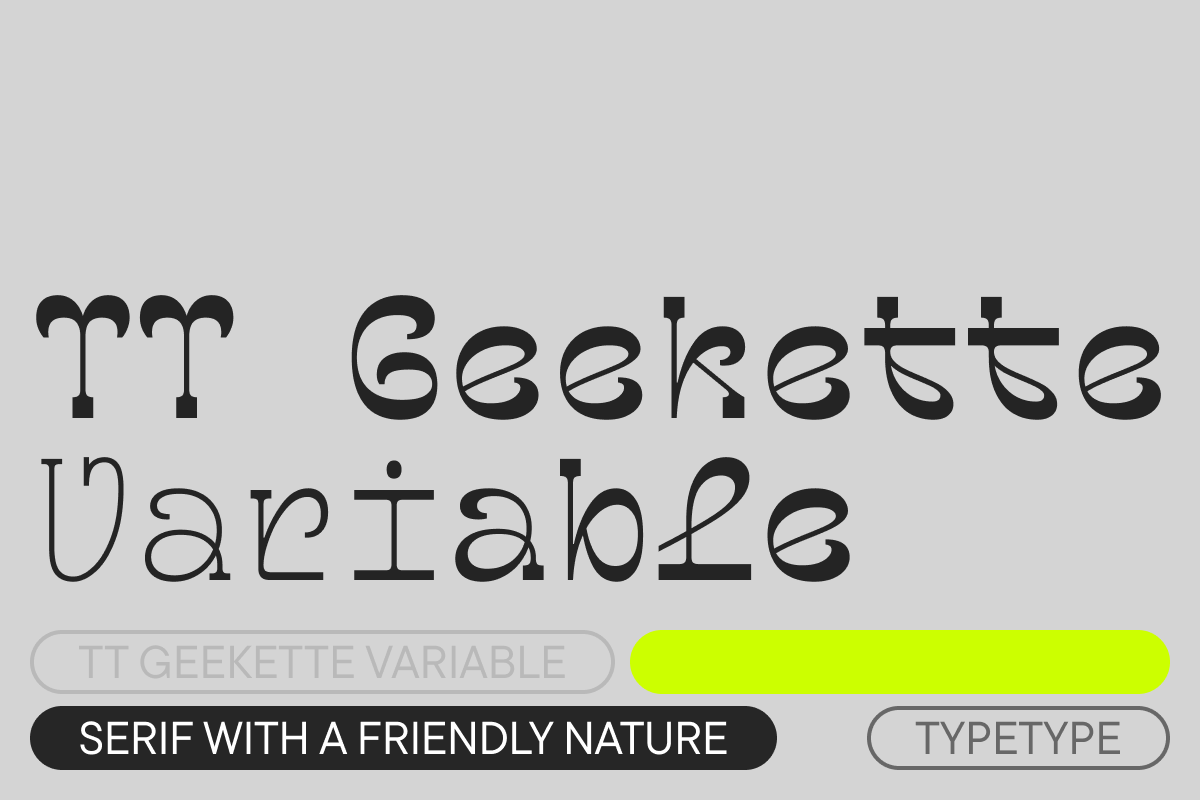
TT Geekette Variable
TT Geekette is a variable serif with a friendly nature. This project was an experiment where we aimed to avoid the simplifications of stiff geometric structures and explore the possibilities of smooth, soft, and flexible shapes. We also wanted the font to be more stylish and serious, that’s why we decided to make it monospaced. TT Geekette is a decorative font well-suited for printed materials, branding, and web design.